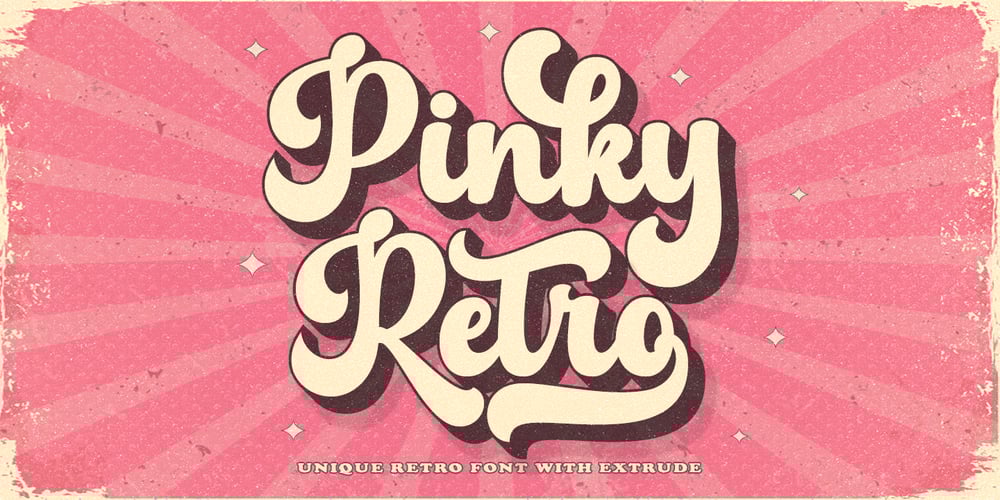
Pinky Retro Extrude Font Family was designed by Muhajir Akarim and published by Soft Creative. Pinky Retro Extrude contains 4 styles and family package options. Introducing, Pinky Retro, a bold retro script that will take you back to the 60s. This typeface has an extruded version so you can create a retro effect font easily. This font is very suitable for application, especially on logos, and various other formal forms such as invitations, labels, logos, magazines, books, greeting/wedding cards, packaging, fashion, make up, stationery, novels, labels or any type. advertising purposes.